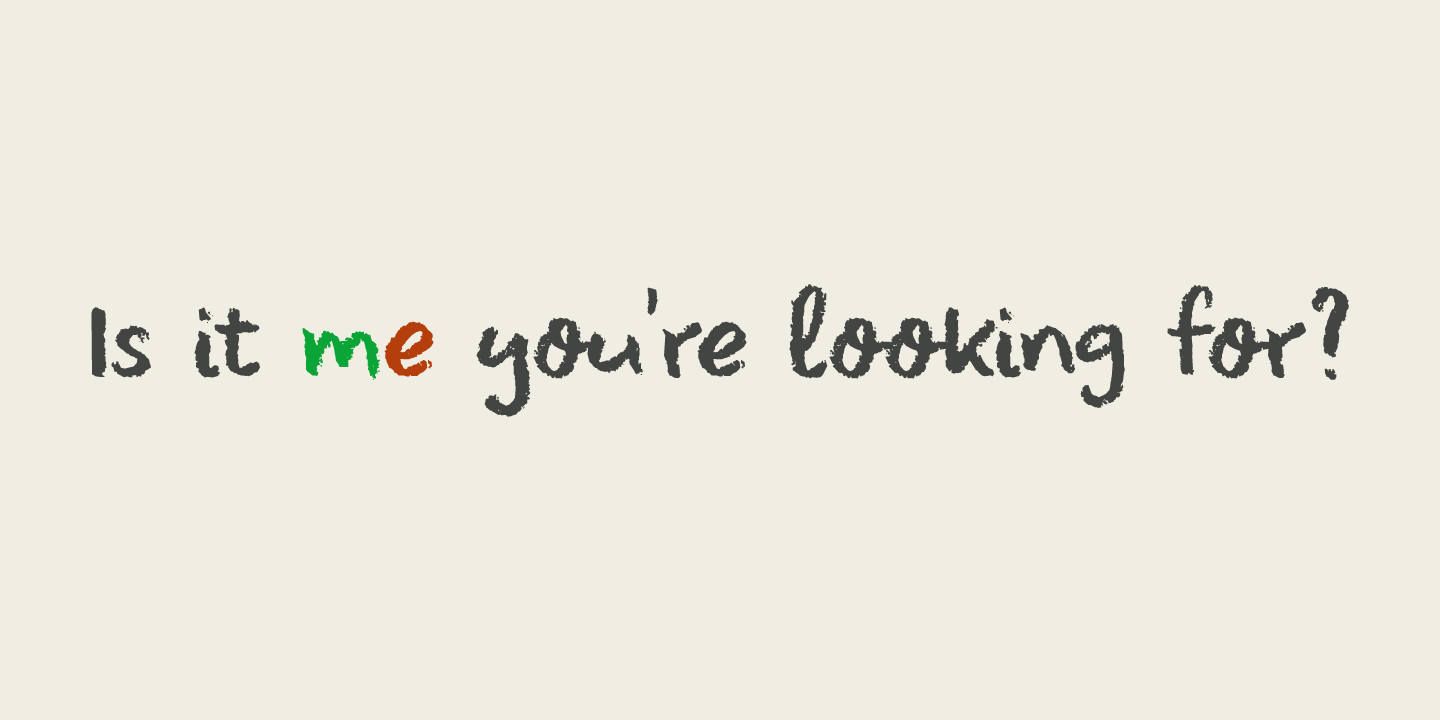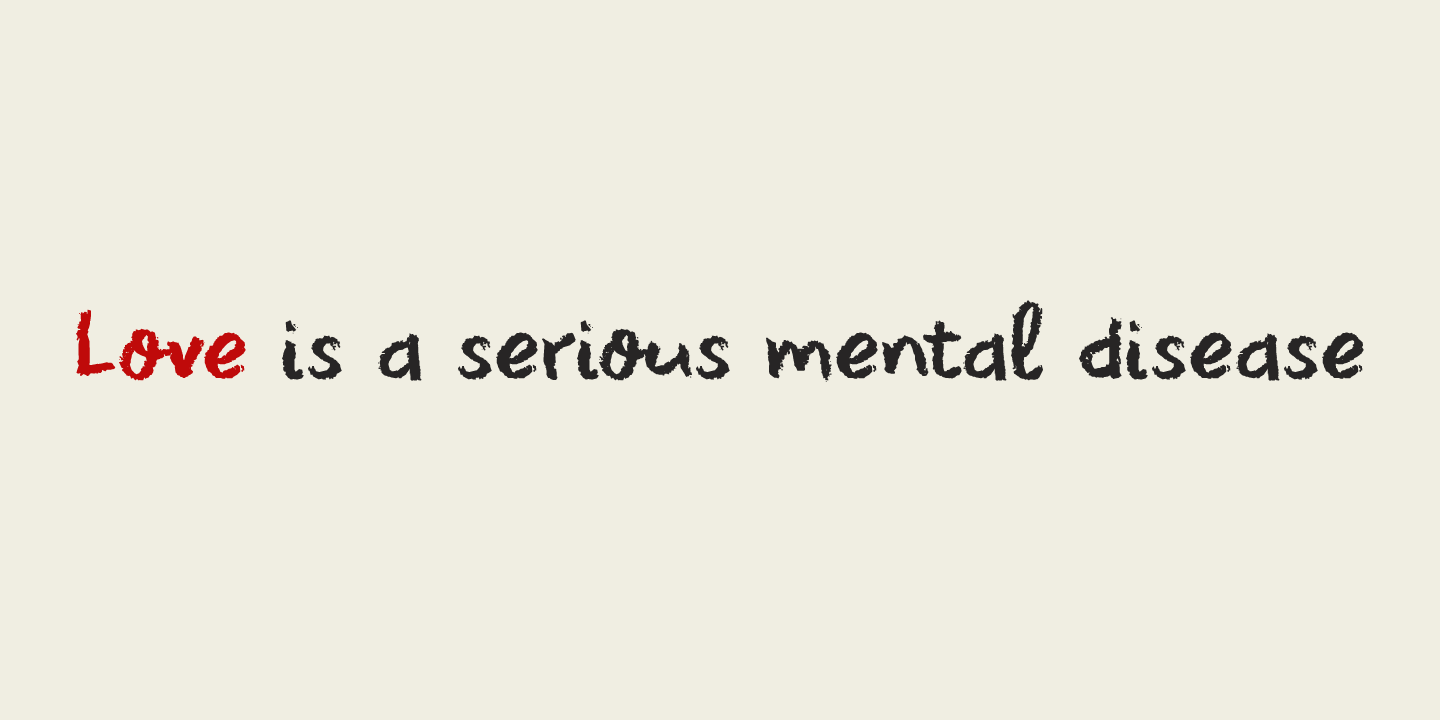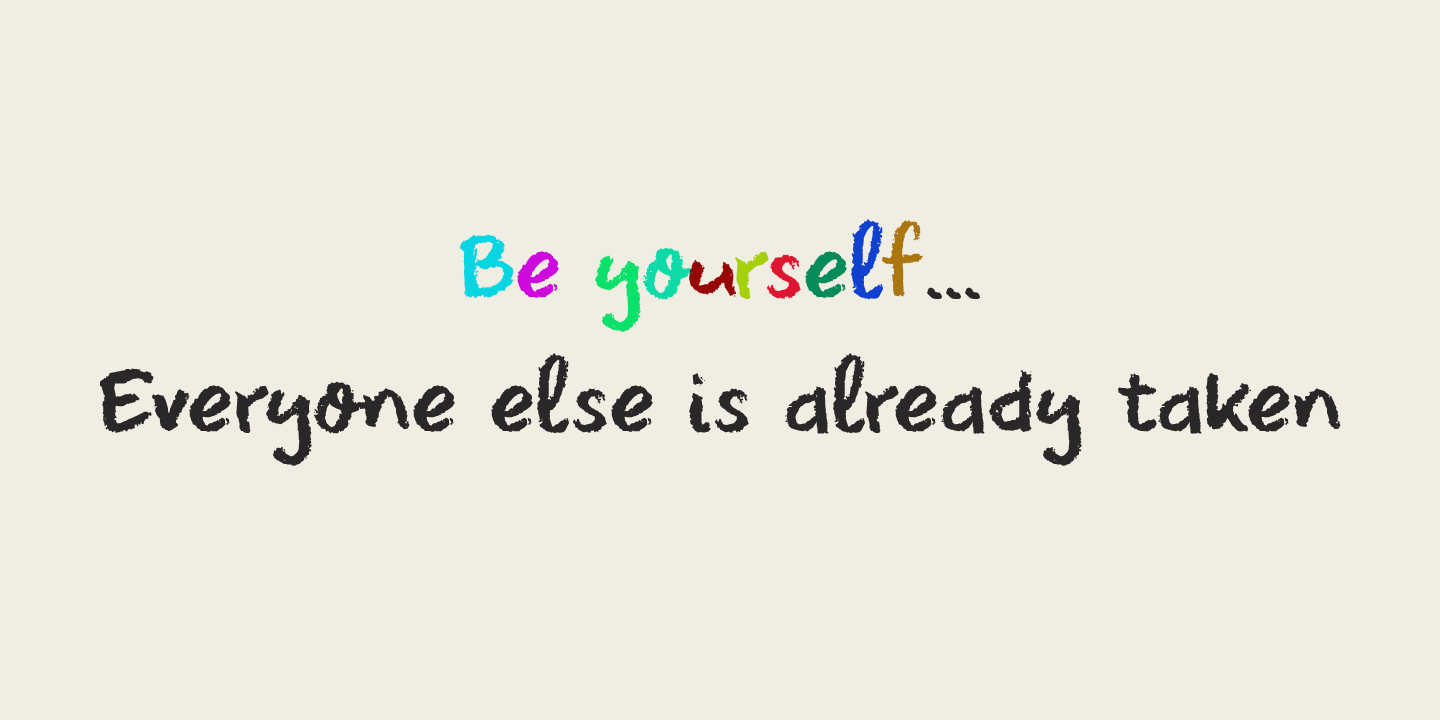
About Leftover Crayon
My kids have a tin box filled with crayon and pencil leftovers: bits and pieces that have fallen or broken off, but are still good enough to use. For me it is a treasure trove, as I often find a nice bit of crayon to use for a new font. In this case,…